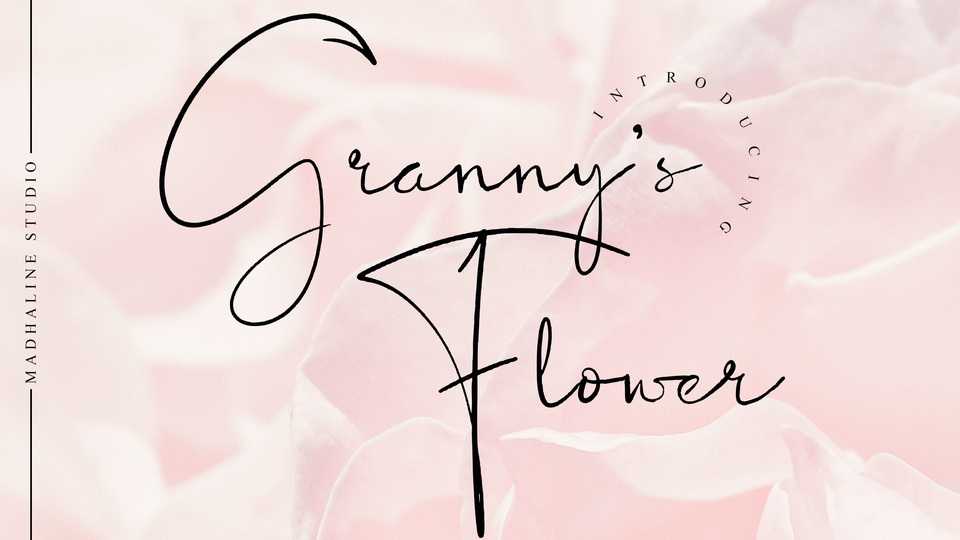
Granny’s Flower Font › Fontesk – Download Grátis
Download Granny’s Flower font, a luxury signature style handwritten typeface with an elegant flow. Granny’s Flower would perfect for photography watermark, social media posts, logos and branding or anything that need handwriting taste.
Designer: MadhalineStudio